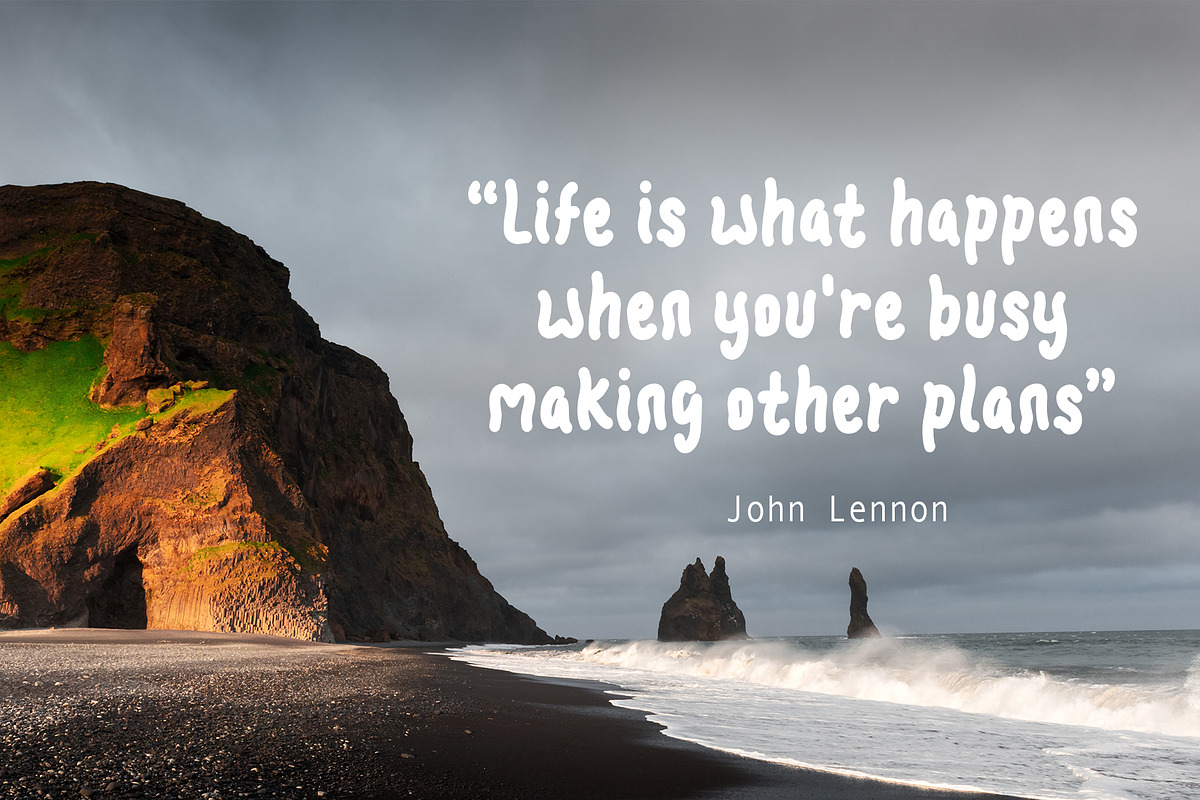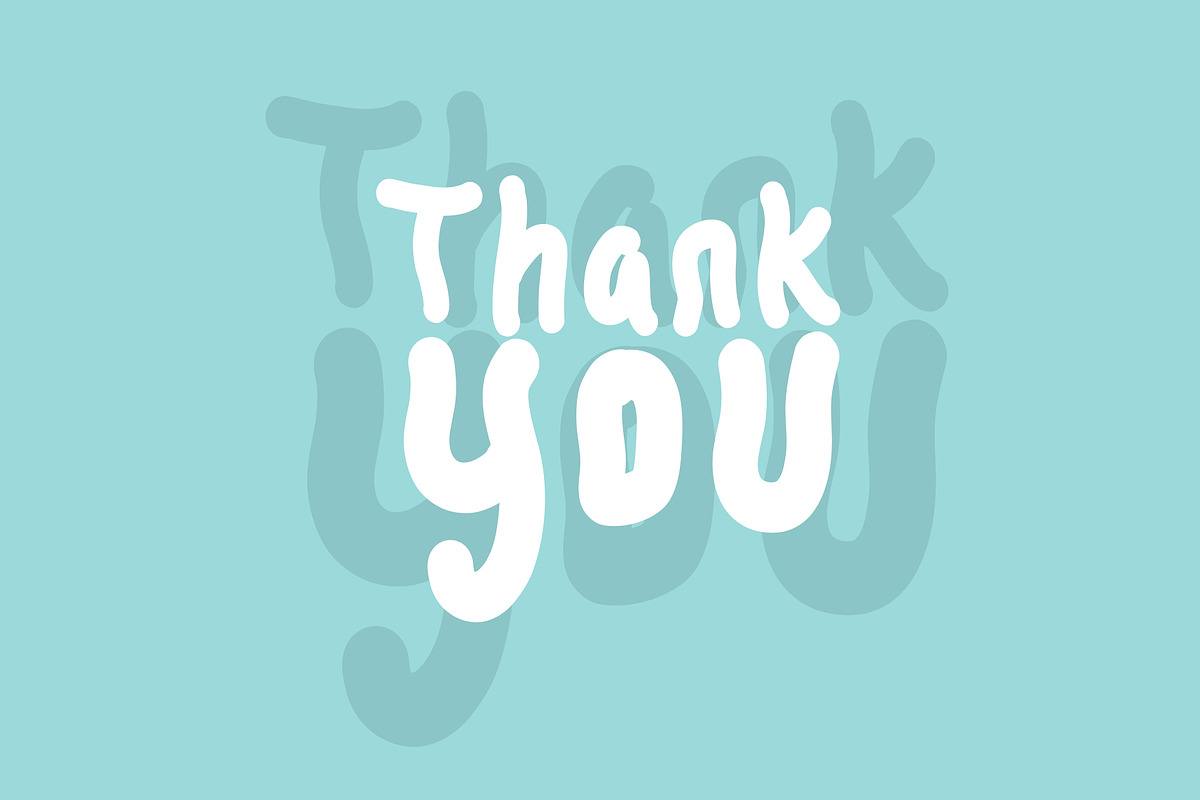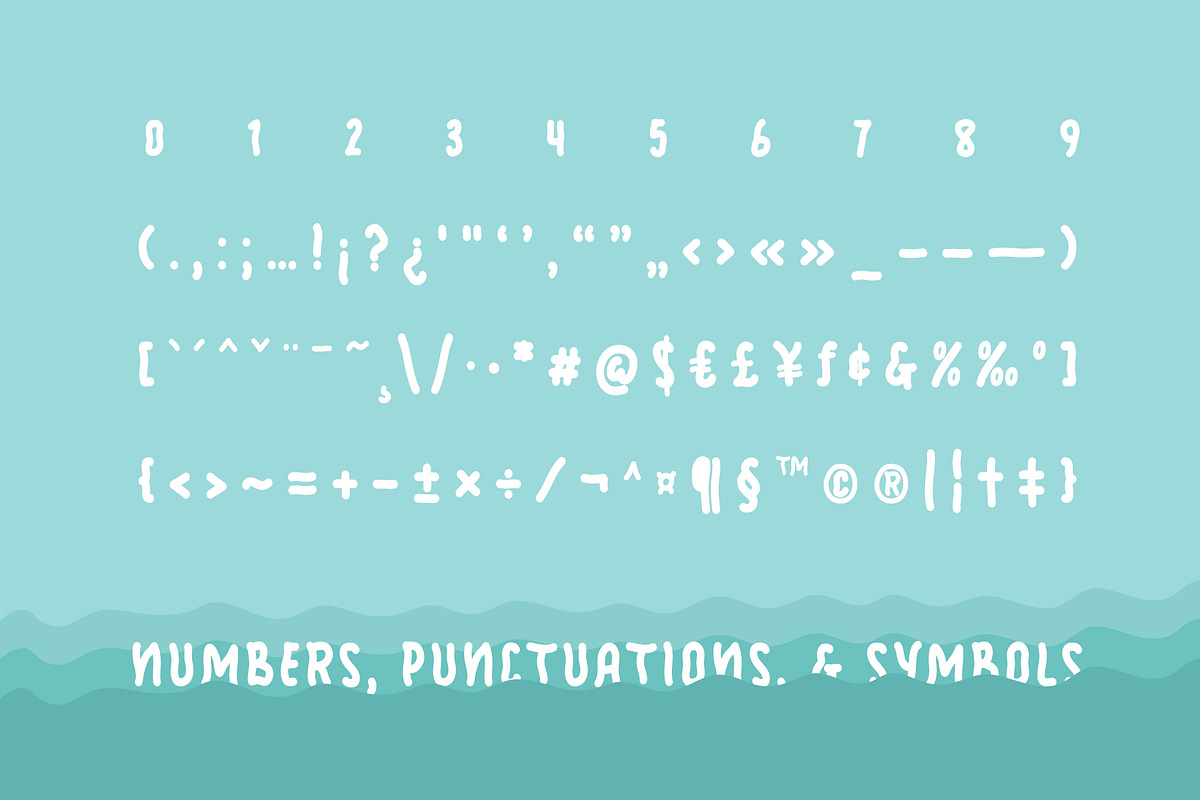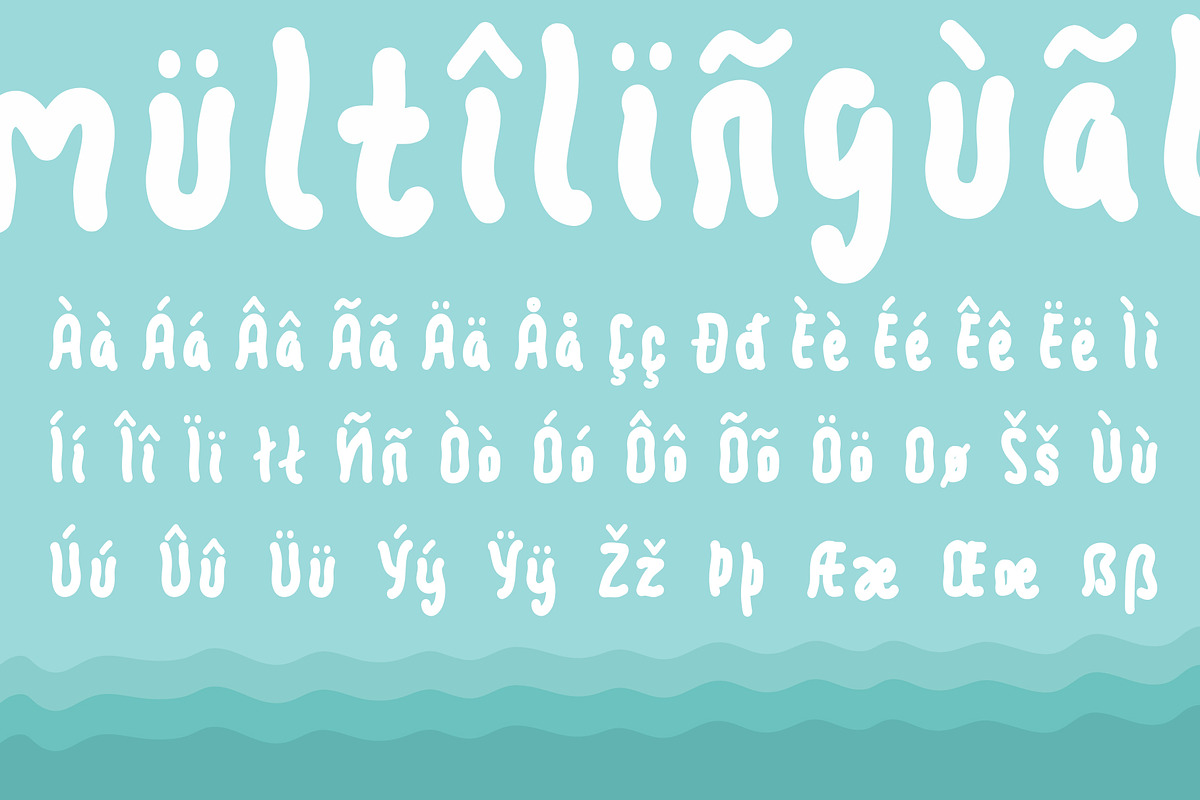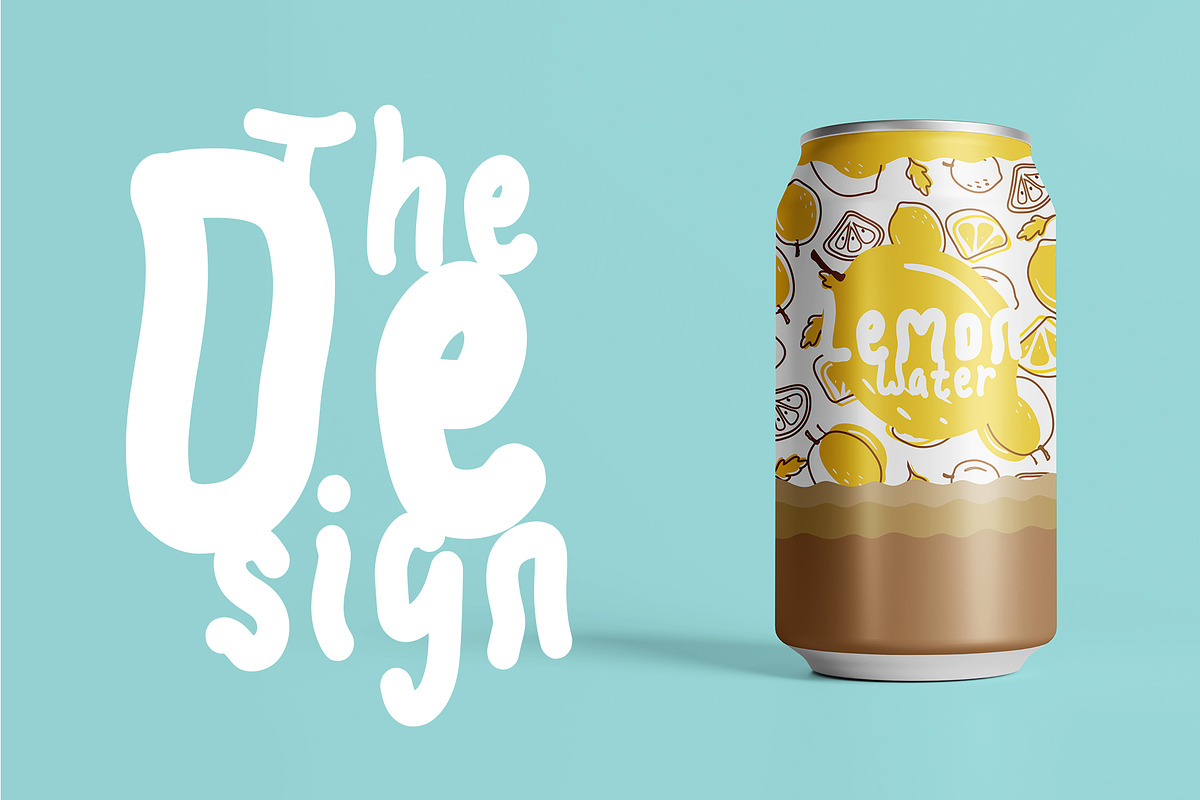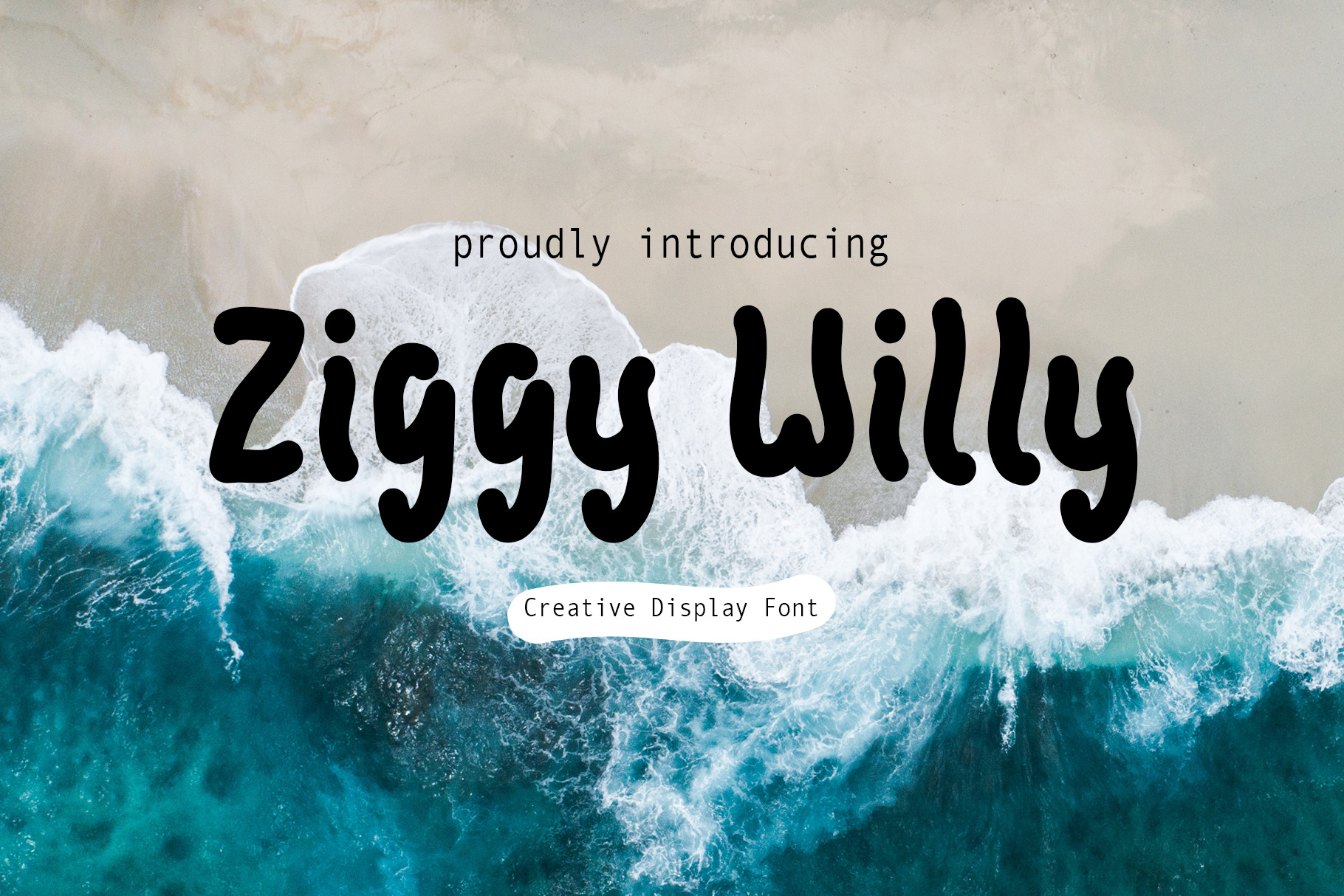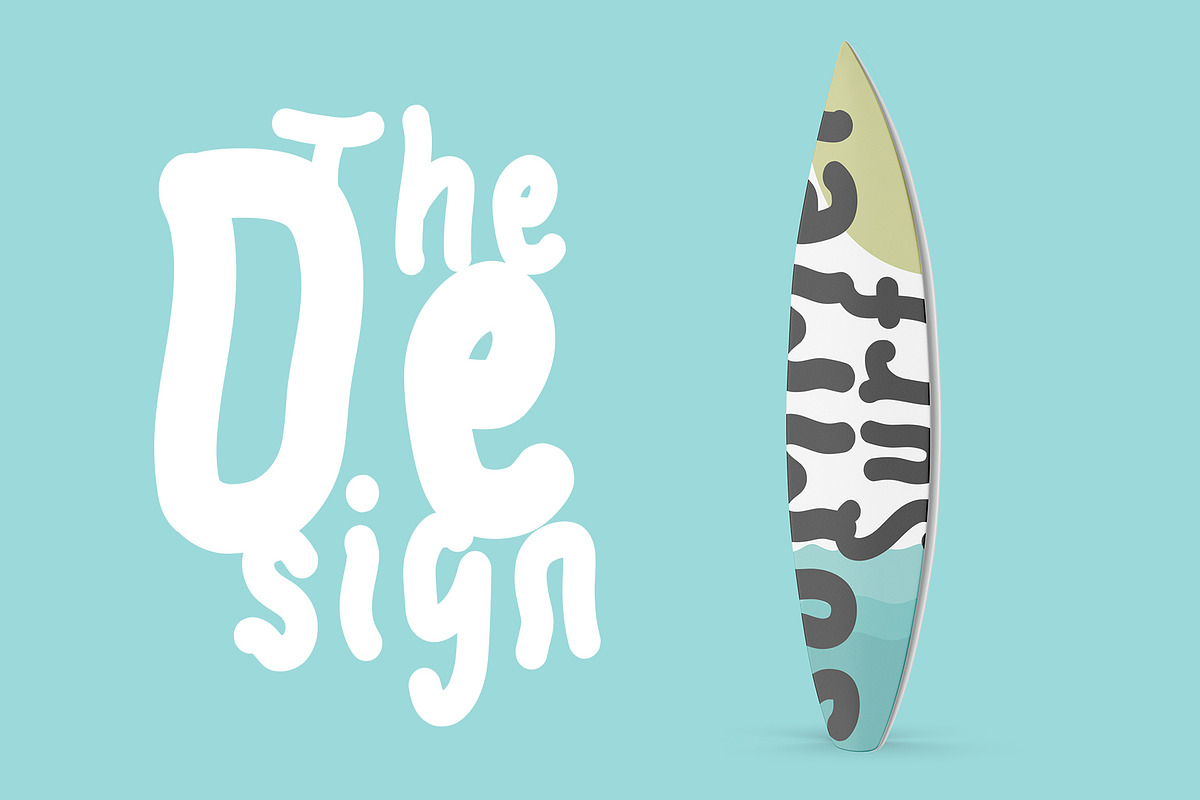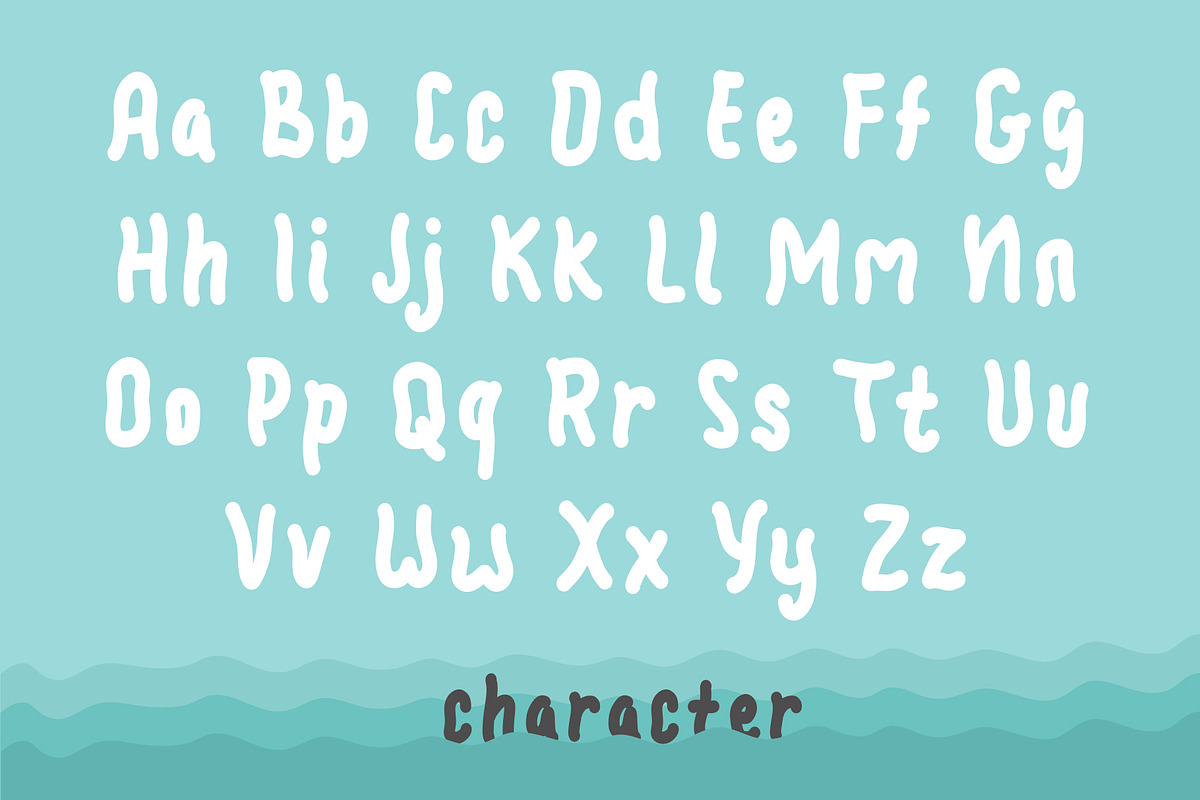
Ziggy Willy Creative Display Font
Ziggy Willy font is a typeface that features slightly wavy curves, providing a unique and captivating touch to each letter. It is created with the purpose of adding variation and distinct characteristics to letter designs.
The story behind the creation of this font is closely related to exploration and experimentation in crafting intriguing letter designs. We were inspired by the movements of nature and organic shapes that exhibit waves, such as ocean waves or natural curves found in objects. Throughout the font creation process, we aimed to merge curved elements and unique shapes to produce a font that exudes visual appeal and grabs attention.
By utilizing the Ziggy Willy font in your designs, you can infuse creative flair and unique characteristics into your projects. This font is suitable for various design contexts, including logos, posters, or design elements that require an attractive and distinctive appearance.